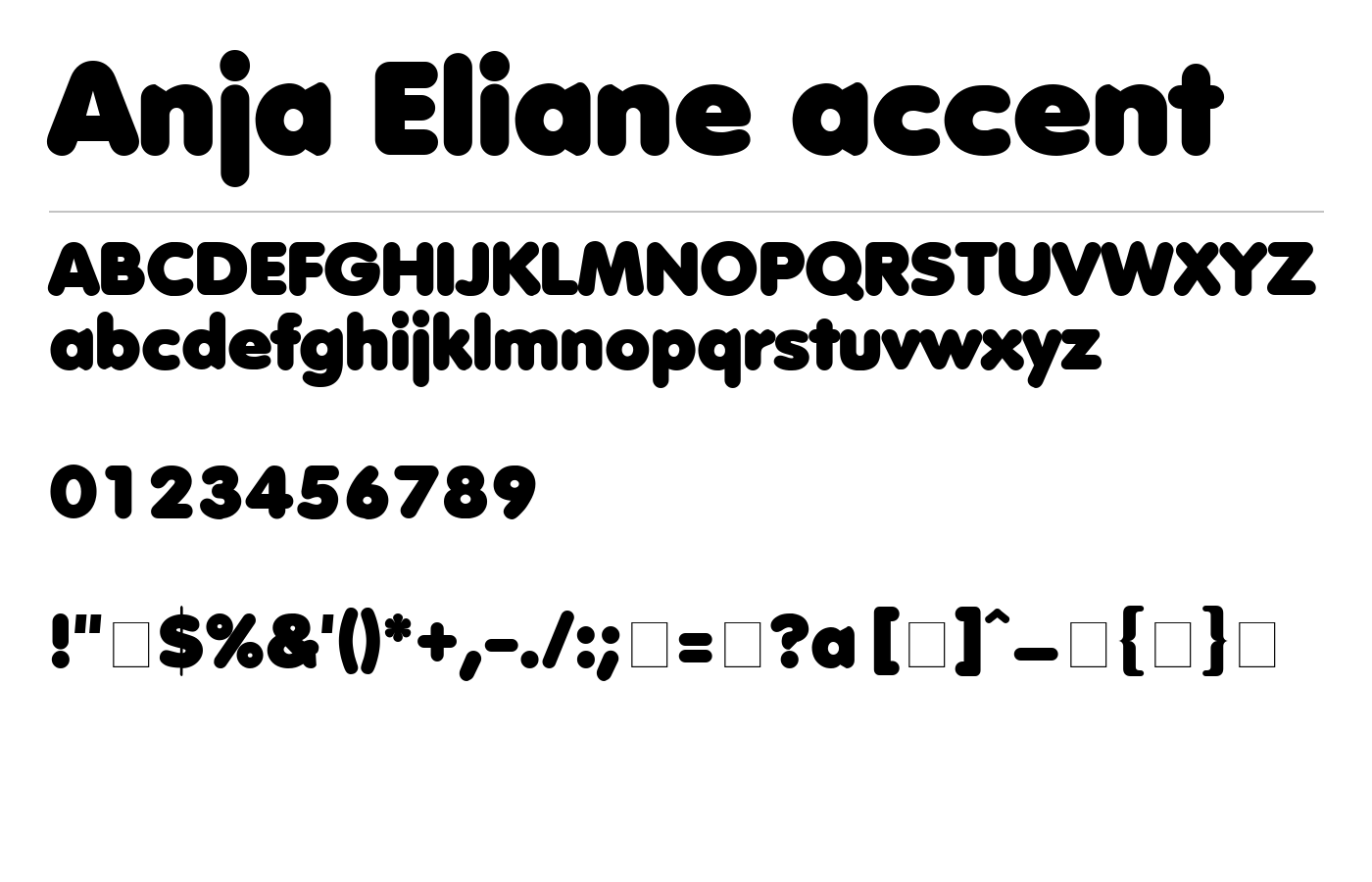
Anja Eliane accent is a playful, rounded sans serif font with a bold weight and a friendly, approachable style. Its thick, smooth strokes and high x-height give it excellent readability and a casual, modern feel, making it ideal for creative branding, children's materials, and lively headlines. This font works well where a fun and welcoming tone is desired, adding warmth and personality to any design.
Anja Eliane accent Font